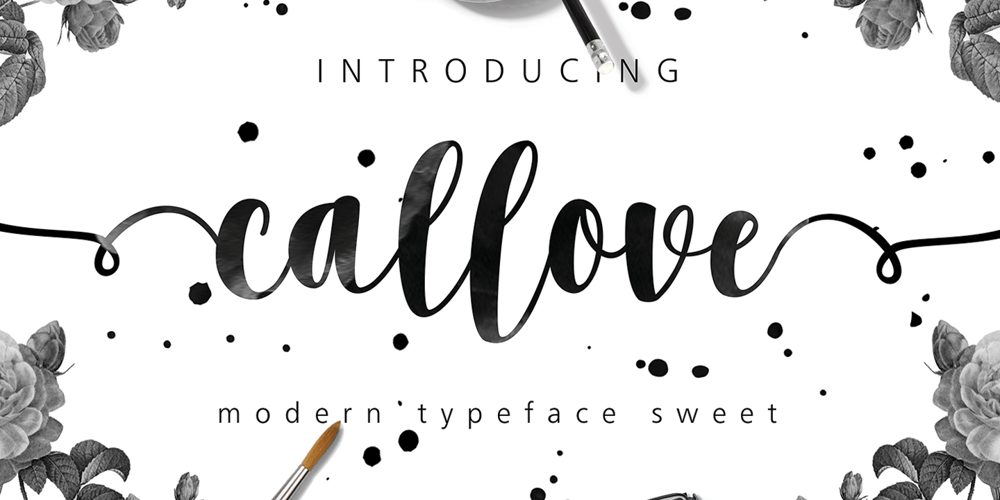
Callove Script Font Family was designed by Bustami Harun and published by Genesislab. Callove Script contains 1 styles and family package options. Latest styles callove script with the kind of modern hand scratches, I hope you are interested in this font, if you want to use for your work this font can be used easily and simply because there are a lot of features in it to contain a complete set of letters lower and uppercase letters, assorted punctuation, numbers, and multilingual support. font also contains alternate style Stylistic Sets, Swsh for those of you who have software that is able to work OpenType (Photoshop / Illustrator / InDesign).Callove script is suitable use for market design developed at this time, this font has a model Trendy, natural and gentle, with this font you can take advantage of the opportunity in every moment of one wonderful way to highlight the celebration of the feast of your best, because this font will be advocates for purposes such as wedding invitations, party, graduation, birthday, gathering, etc.if you have a problem? Contact me: genesislabstudio@gmail.com